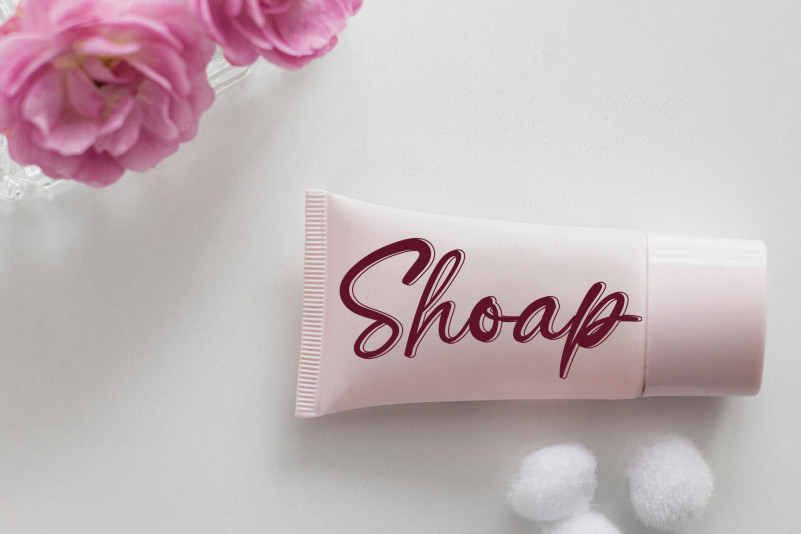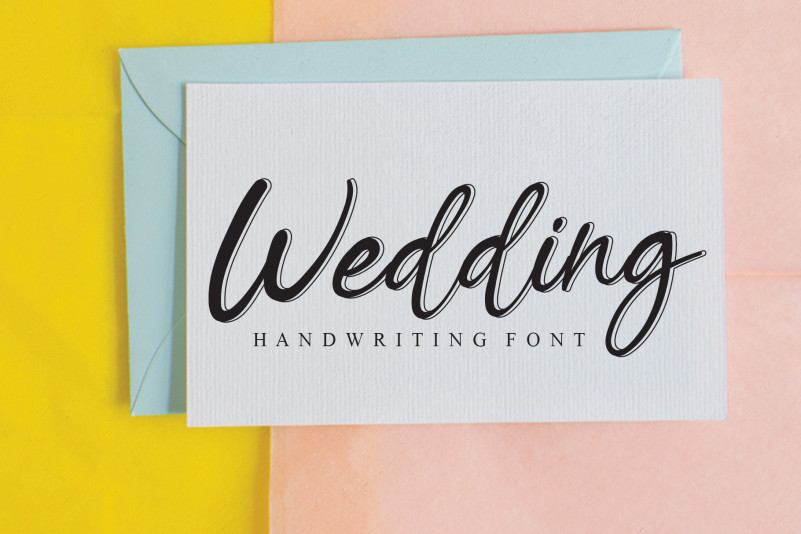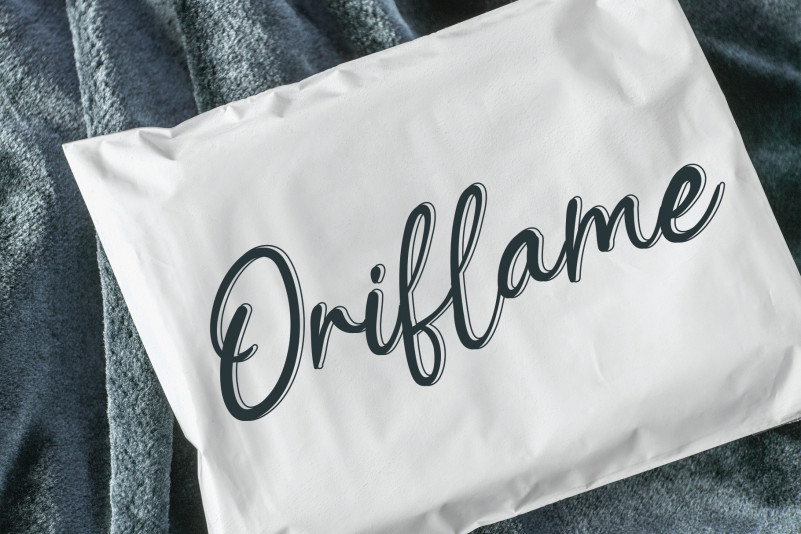
Winter Beauty Script Font
Winter Beauty Script Font is a modern script font. Its natural and unique style makes it incredibly fitting to a large pool of designs. The only limit is your imagination!